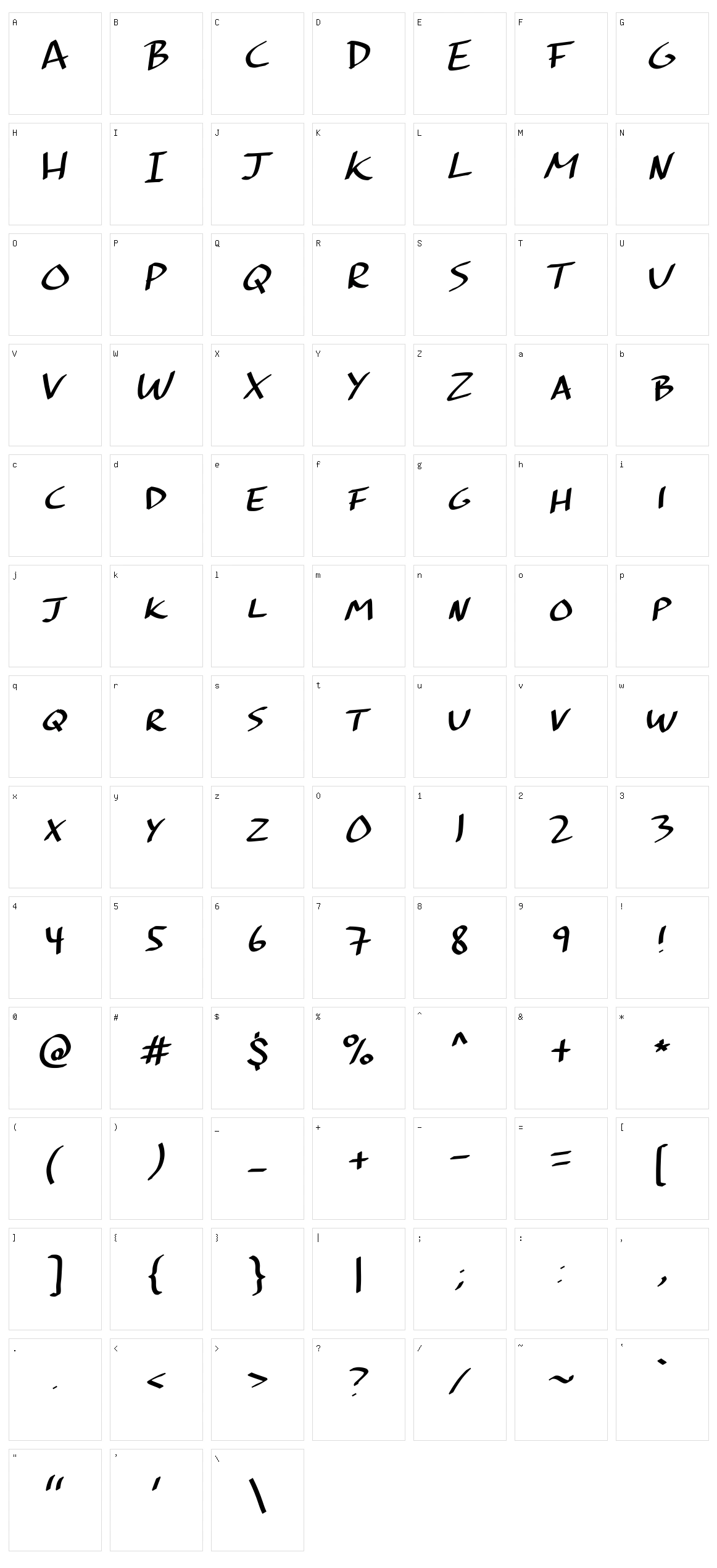
The free font Brushmark is carefully designed by Geronimo Font Studios, showcasing a thoughtful balance of creativity and usability and falls under the Script font style. When you download the ZIP file, it contains only 11.49 KB of font files, making it lightweight and quick to download. Please review the license details below to understand permitted usage and distribution rights. If license information is not available, we recommend using this font for personal projects only or contacting the author directly for commercial usage permissions.